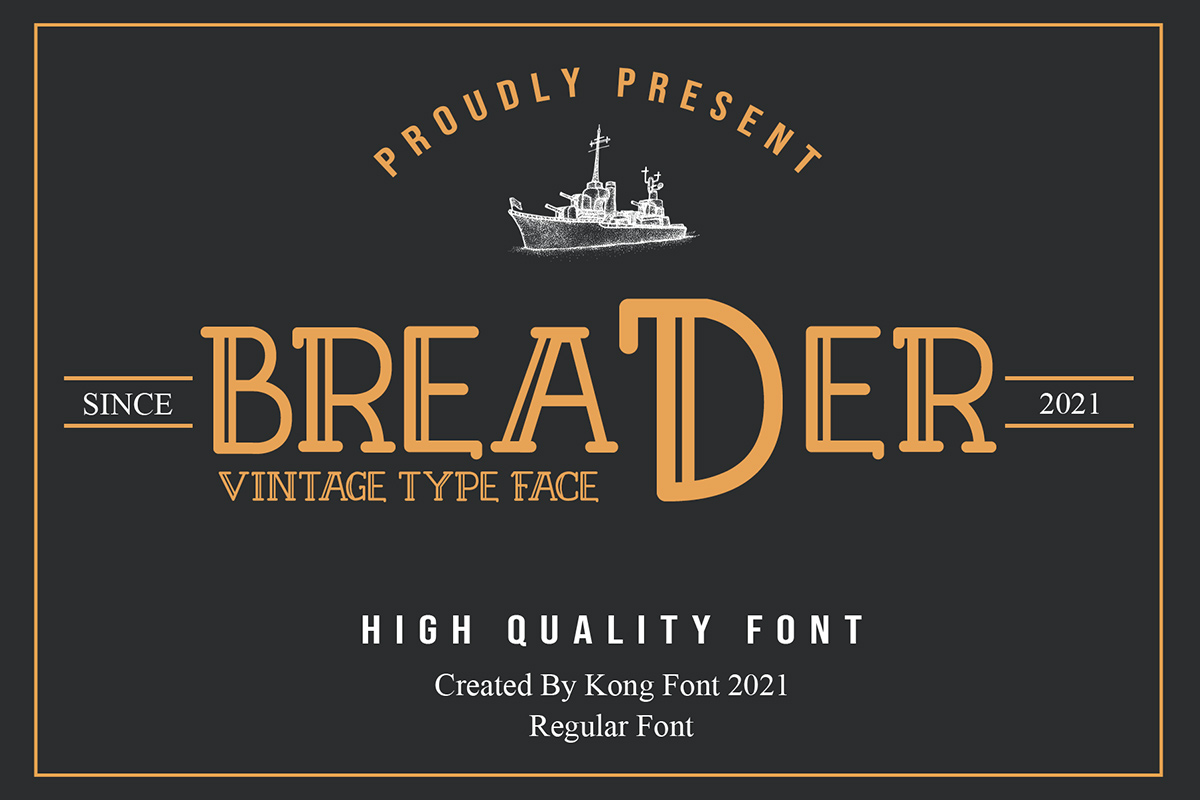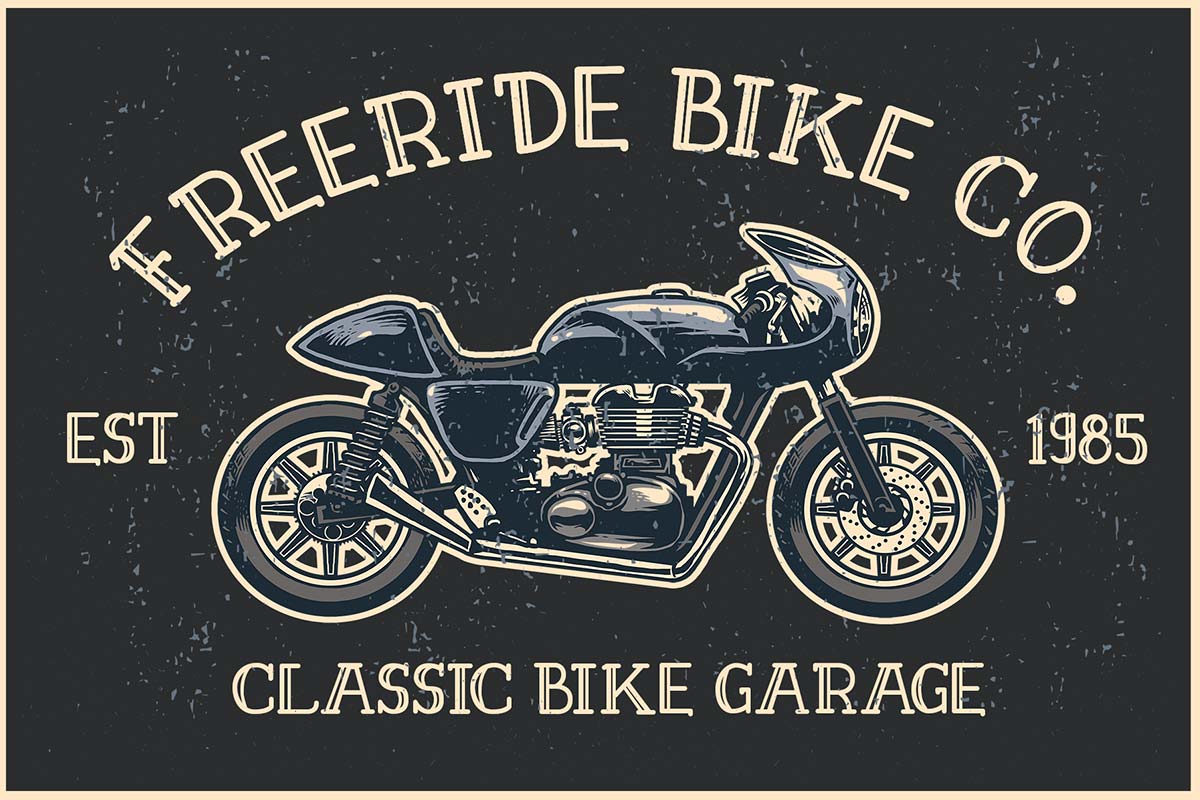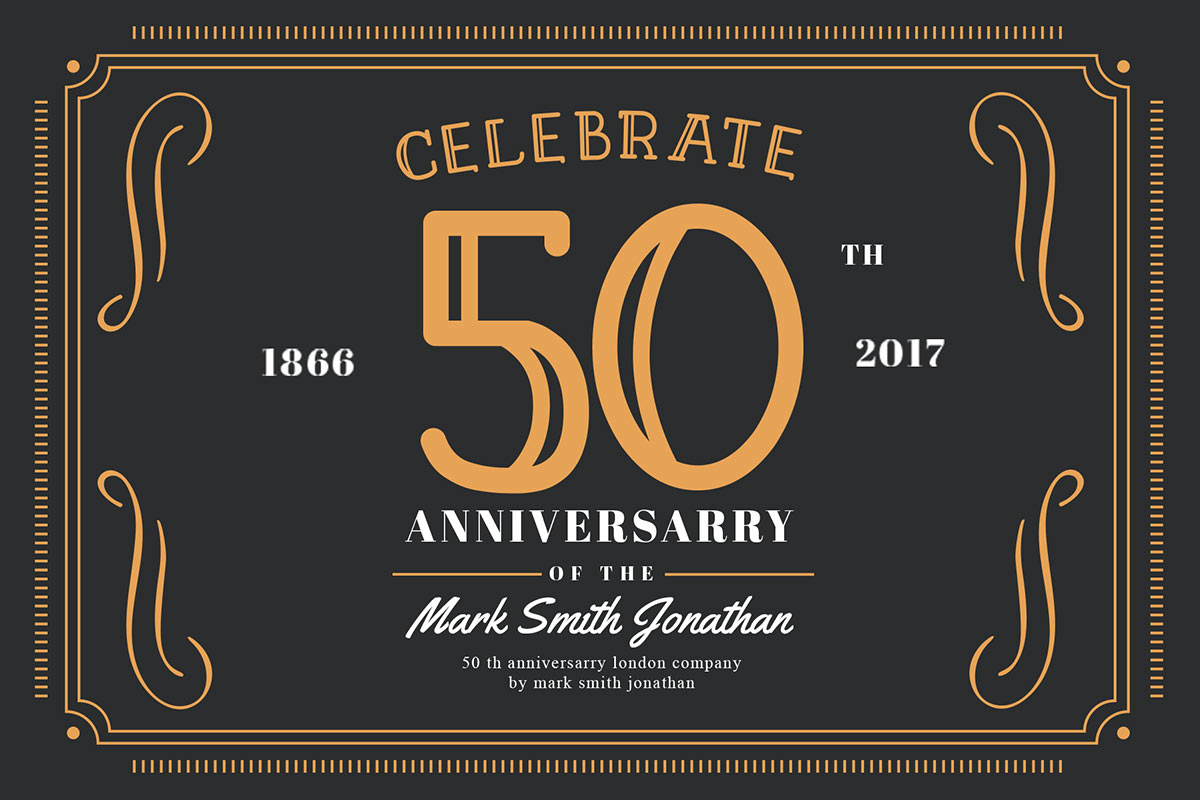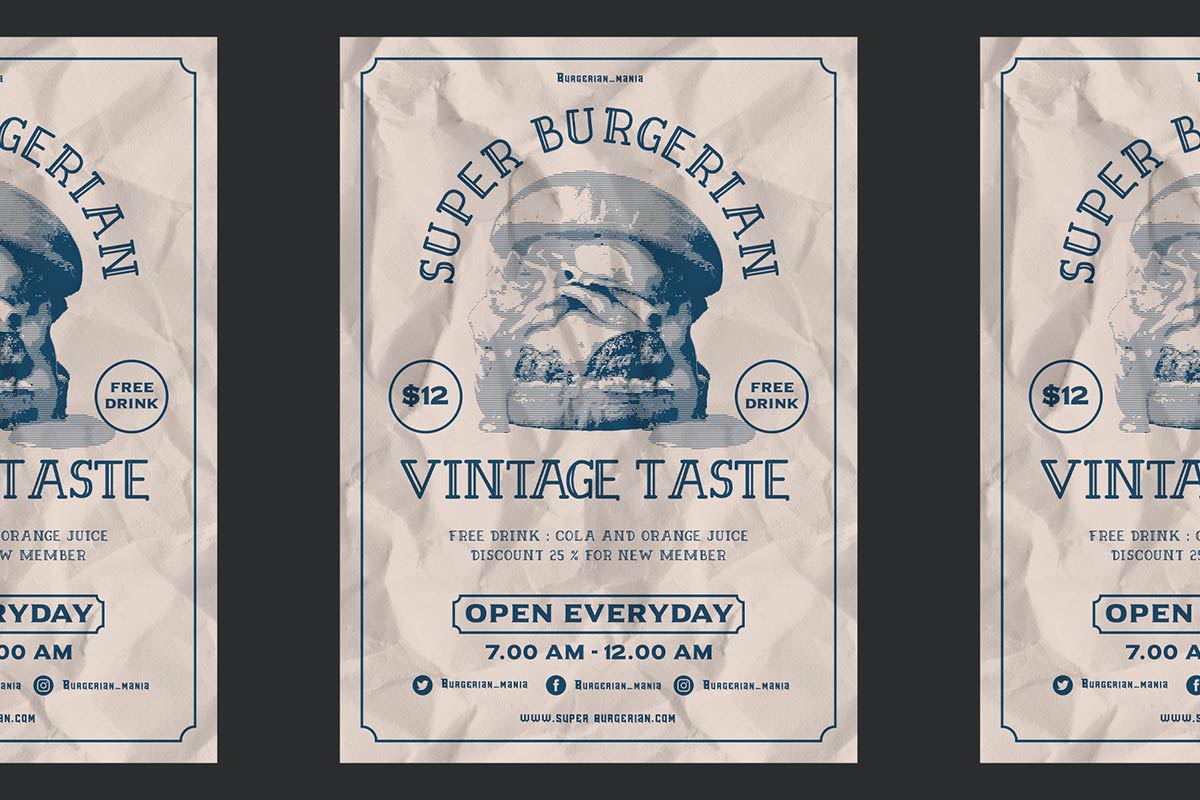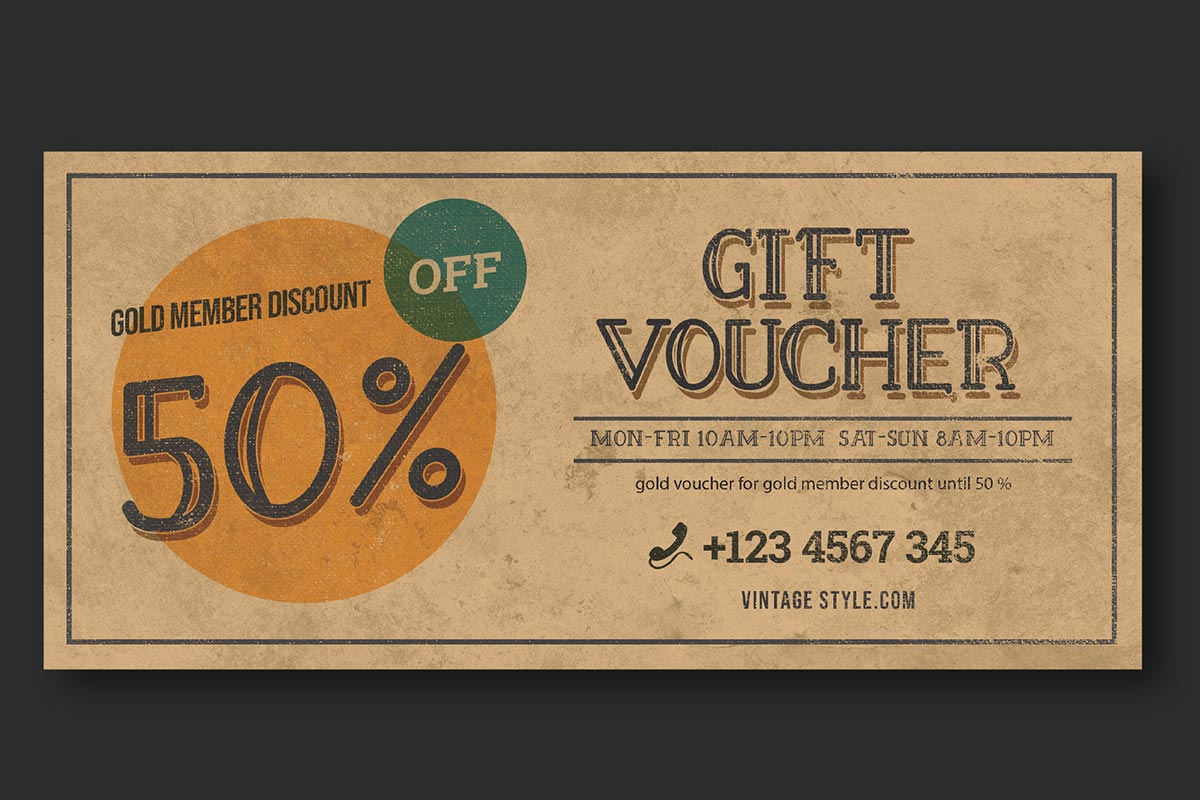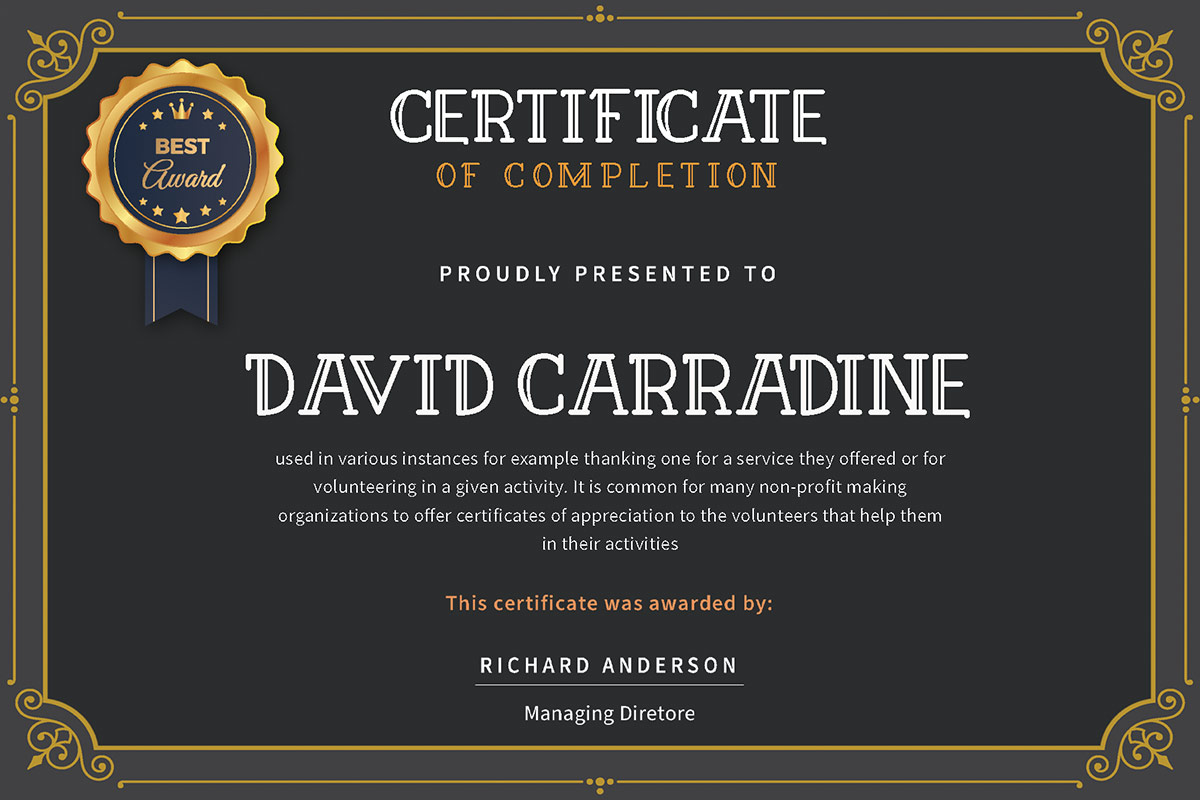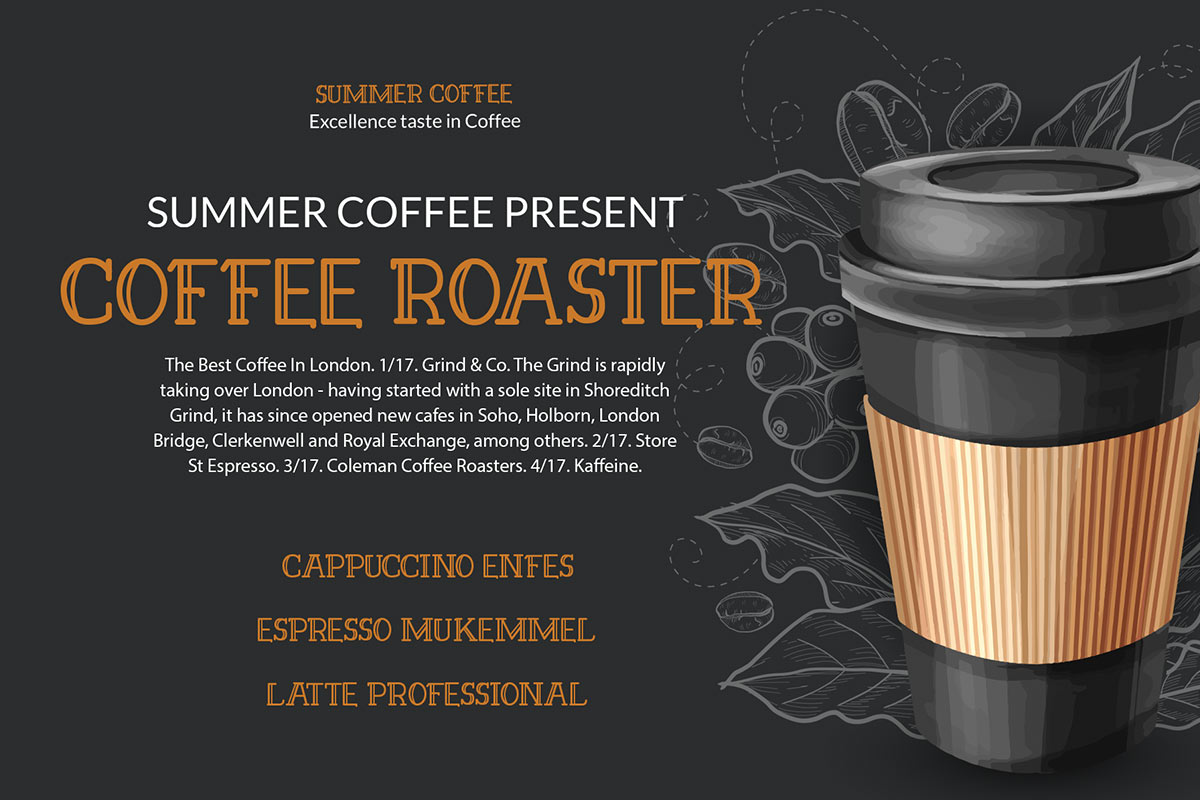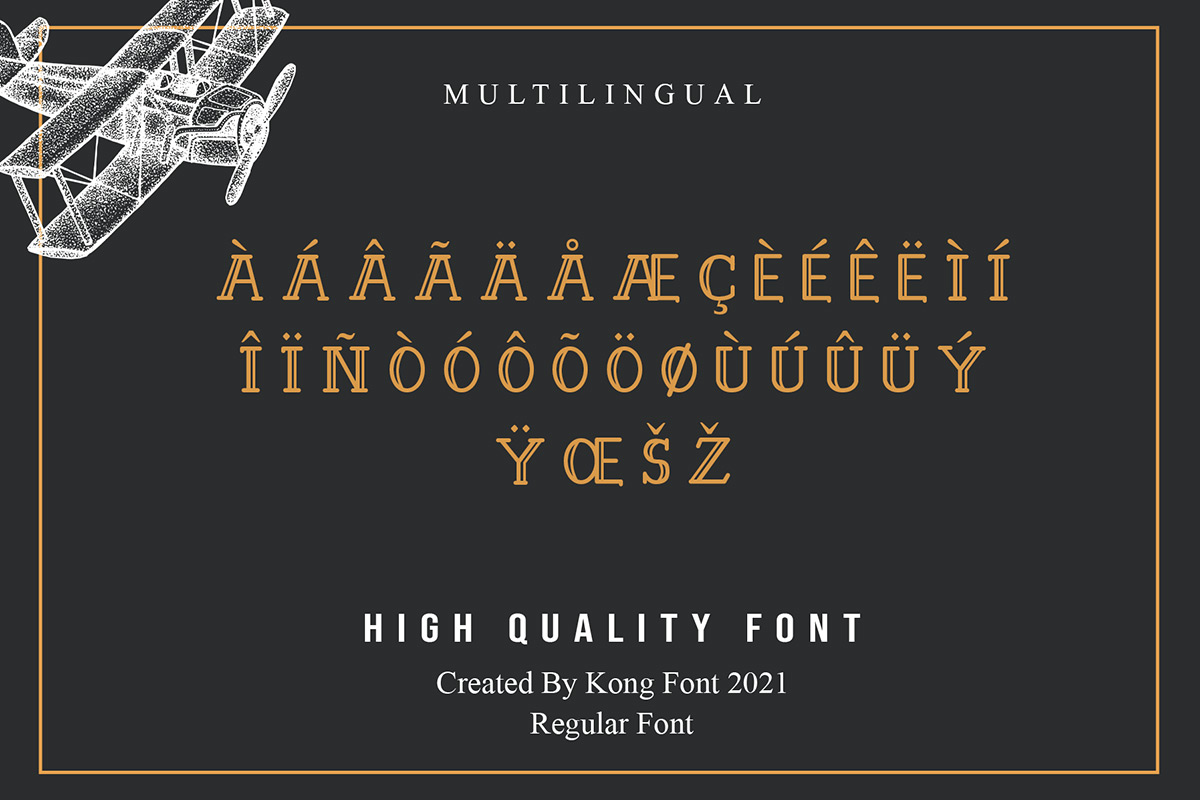
Breader Font Breader Vintage Font provides a new look that is different from the general serif fonts. There are additions to the body of the font. Breader Vintage Font is a display font that carries a vintage, simple, and upright feel. It can also use as a bold and modern font. Breader Vintage Font has many matches when combined with the product to be used. Fashion brand tags such as clothing will work well with this typeface. There is no need to add excessive pictures and ornaments because Breader Vintage Font has presented its identity where a simple yet classic impression radiates. Breader Vintage Font is a typeface that can use as digital fonts and print fonts. This font can use as a title that appears first in intro videos that catch the viewer's attention at a first impression. Posters and magazine cover work especially well when using the Breader Vintage Font. This is because even though this font is a serif typeface, it can be seen clearly and can be distinguished per letter. So this font is included in legible fonts. Our collection of Display fonts is compatible for use as; Figma Fonts, Canva Fonts, Freepik Fonts, and Adobe Fonts. They also work as Windows Fonts and Apple Fonts. For your social media needs, you can use and install fonts in our Serif font collection to use as Instagram Fonts, Facebook Fonts, and Twitter Fonts.